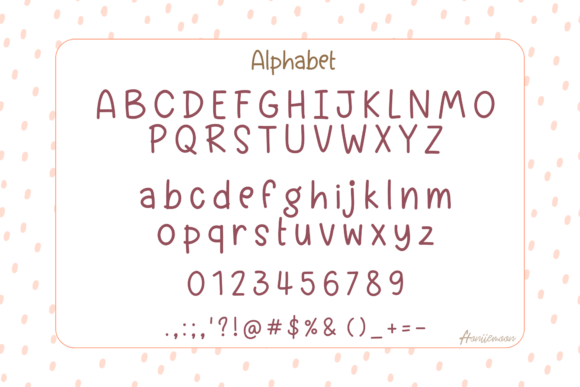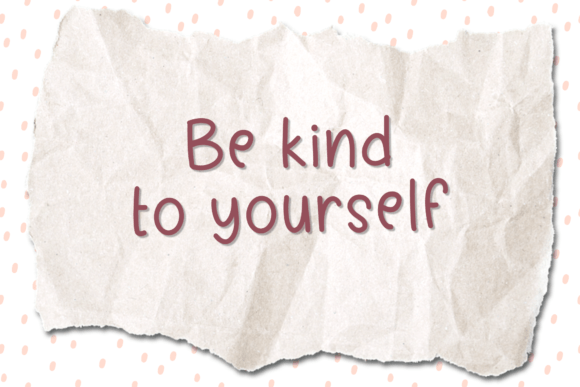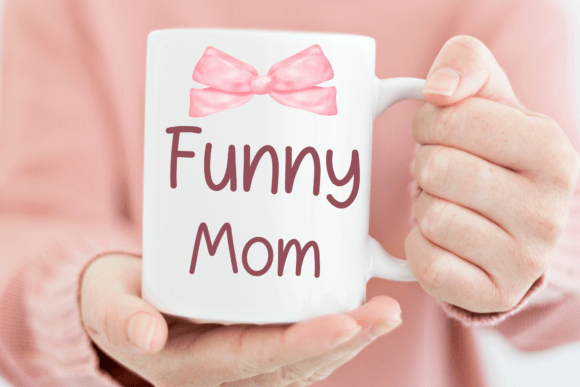
Have you ever been brainstorming a new project and suddenly, a burst of creativity strikes? You see the perfect font, and it all comes together – the colors, the layout, and the message. That’s what happens when you find the right tool for the job. For designers, the right font can make all the difference in bringing a concept to life.
Enter Cheery Font, a sweet and friendly handwritten font that’s perfect for adding a touch of personality to your designs. Its natural and unique style makes it incredibly versatile, allowing you to use it for everything from greeting cards to branding materials. Whether you’re looking to add a playful twist or a warm, inviting feel, Cheery Font is the perfect choice.
Cheery Font Key Features
- Font Style: A modern, sans-serif font with a friendly and approachable feel.
- Unique Characteristic: The font features a unique, hand-drawn feel with subtle texture and flair, giving it a distinctive and eye-catching appearance.
Designer Review: Cheery Font
I recently had the chance to work with the Cheery Font, and I must say, it’s a font that’s sure to put a smile on your face. ✨ The playful and whimsical feel it brings to any design project is unmatched. It’s perfect for creating a friendly and approachable atmosphere in your branding, website, or even social media graphics.
- Customizability: Cheery Font offers a range of weights and styles, making it easy to adjust to your design needs. ✨
- Legibility: The font is clear and easy to read, even at smaller sizes. ✨
- Uniqueness: Cheery Font stands out from more traditional fonts, adding a touch of personality to your designs. ✨
However, there are a few limitations to consider: ⚠️ The font may not be suitable for more formal or professional designs, as it can come across as a bit too playful. Additionally, some users may find the font’s quirks and irregularities a bit too distracting. ⚠️
Overall, I’d give Cheery Font 4 out of 5 stars. While it may not be the perfect fit for every design project, it’s definitely a great choice for those looking to add some personality and whimsy to their work. With a bit of careful consideration and selection, Cheery Font can be a valuable addition to your design toolkit.
For the most effective use of Cheery Font, use it sparingly and in conjunction with other design elements. Avoid overusing the font, as it can become overwhelming. Use Cheery Font for headings and titles, and reserve other fonts for body text. Experiment with different font sizes and colors to create visual interest.
Cheery Font is perfect for: Creating playful and inviting headlines, Adding a touch of whimsy to children’s party invitations, Designing greeting cards and gift tags, Creating social media graphics and advertisements, and Adding a pop of color and personality to business presentations and reports.